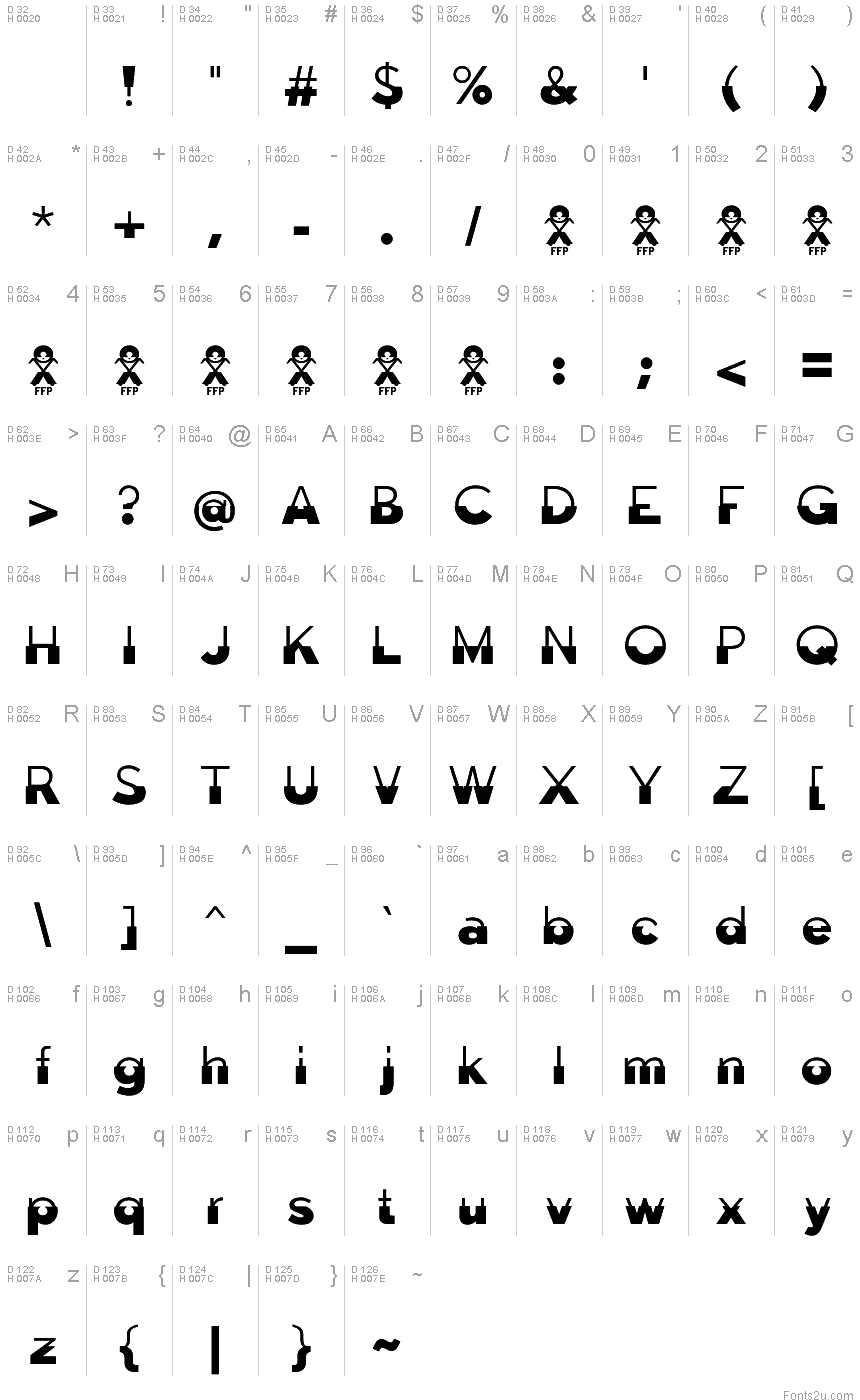
Disoluta-Regular
Dissolute is a typographical experiment fusion of two sans fonts with different weights, for which I used my previous Typefaces:
Tabarra Black & Light.
Disoluta es un experimento tipogrfico de fusin de dos fuentes sans con pesos diferentes, para lo cual he usado mis anteriores tipografas: Tabarra Light y Black.
Tabarra Black & Light.
Disoluta es un experimento tipogrfico de fusin de dos fuentes sans con pesos diferentes, para lo cual he usado mis anteriores tipografas: Tabarra Light y Black.
Disoluta
Disoluta is a typographical experiment fusion of two sans fonts with different weights. The result is a font optimal for titles, readable and attractive, decorative, display & exclusive.